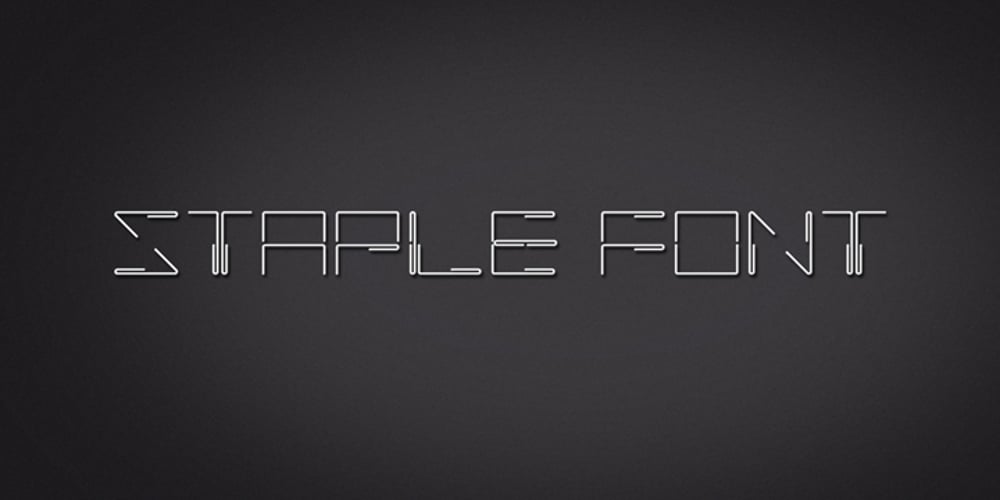
Staple Font Family was designed by Ajeet Mestry and published by Ajeet Mestry. Staple contains 1 styles and family package options. Staple is a Display Font. Each letter and number is made up of a clever arrangement of staples. Together, they retain the simplicity and beauty of a perfectly folded stapler pin. This creates a font that provides very good readability, solid shape and simple elegance that makes it perfect for use as a display font. To add elegance to the font, the letters and numerals are designed to retain the pin identity across all characters. Care has been taken so that the pins do not overlap. Nor are the pins bent or twisted into unnatural shapes to create the characters.